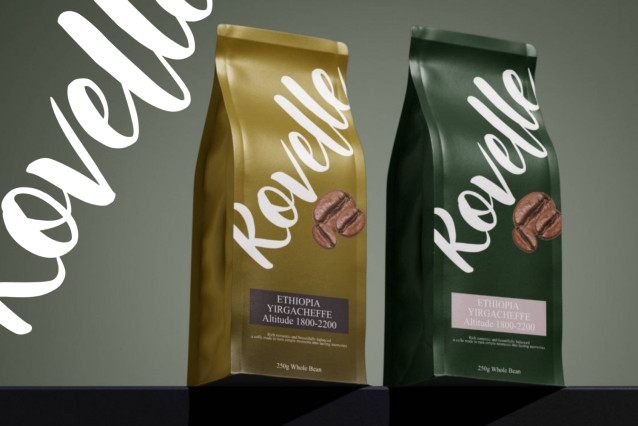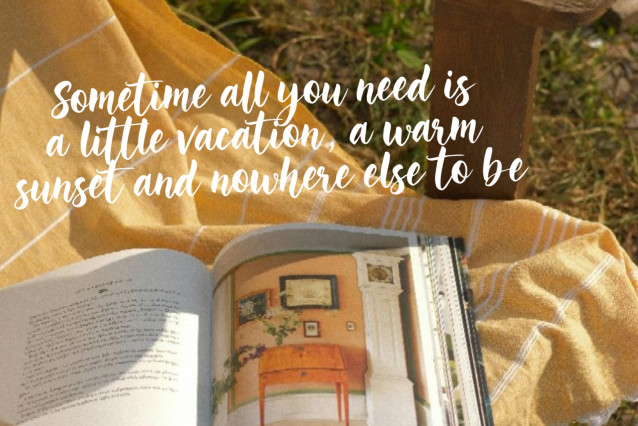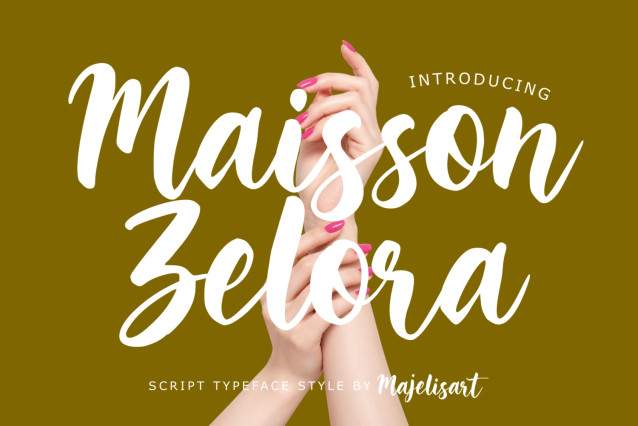
Maisson Zelora – Script Font
Maisson Zelora — Elegant Script Font
Introducing Maisson Zelora, an elegant and expressive Script Typeface designed with smooth, flowing strokes and a natural handwritten character.
Its graceful curves, connected letterforms, and relaxed brush-like appearance create a stylish and feminine aesthetic. Maisson Zelora brings a sophisticated yet effortless touch to designs, making it especially suitable for fashion, beauty, lifestyle, and personal branding.